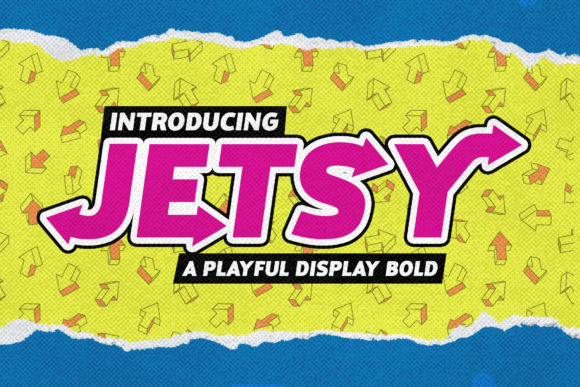
Introducing Jetsy Font - The Epitome of Exuberance and Charm in the World of Display Fonts
Step into the realm of visual delight with Jetsy Font, a captivating display font that exudes an aura of playfulness and warmth. Its whimsical nature dances across your designs, adding a touch of joy and personality that captivates the hearts of all who behold it.
With Jetsy Font, your creations will radiate an infectious energy that draws attention and sparks curiosity. Let your imagination run wild as you explore the endless possibilities of this remarkable font, designed to leave an unforgettable impression on your audience.
A Symphony of Versatility: From Playful to Powerful
Jetsy Font is a master of versatility, effortlessly adapting to a wide range of design projects. Its bold and expressive characters make it the perfect choice for adding a touch of whimsy to children's games, cartoon-themed designs, and playful quotes.
But don't be fooled by its playful exterior; Jetsy Font possesses a hidden depth and power that shines through in brand names, book covers, and posters. Its ability to command attention and convey a message with clarity and impact makes it an excellent choice for businesses and creatives seeking to make a lasting impression.
A Touch of Joy for Every Occasion
Whether you're crafting a whimsical poster, designing an eye-catching logo, or creating a book cover that sparks the imagination, Jetsy Font is your faithful companion. Its inherent joyfulness elevates your designs, transforming them into captivating masterpieces that resonate with your audience.
With Jetsy Font, you'll find endless opportunities to express your creativity and share your unique vision with the world. Embrace the boundless possibilities of this remarkable display font and let your imagination soar to new heights of brilliance.